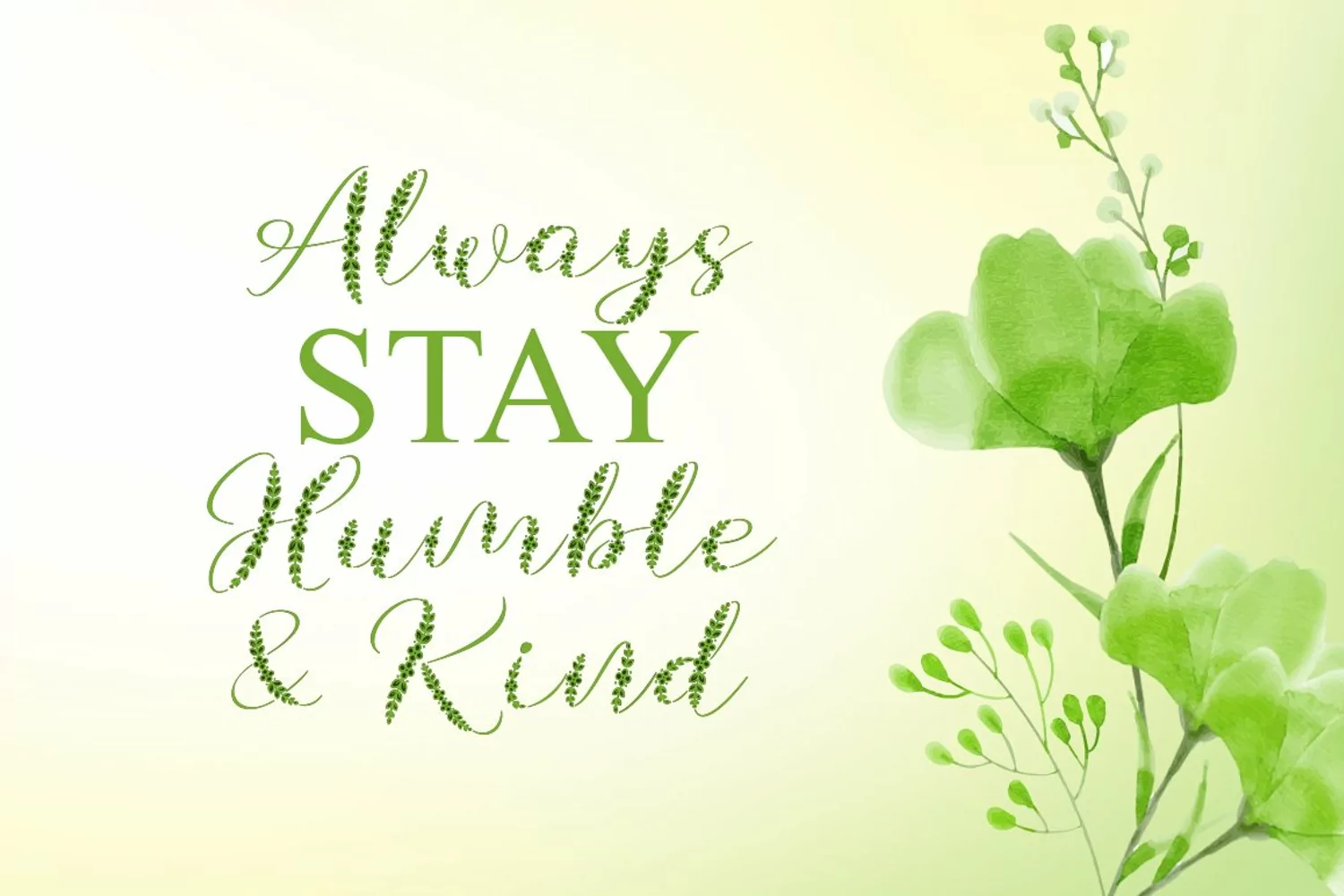
Galea Script Typeface - a new fresh handmade calligraphy font. Galea Script with 2 different style, regular & bold. Galea script perfect using for wedding invitation, event, card, display, logo, greeting card, and more!